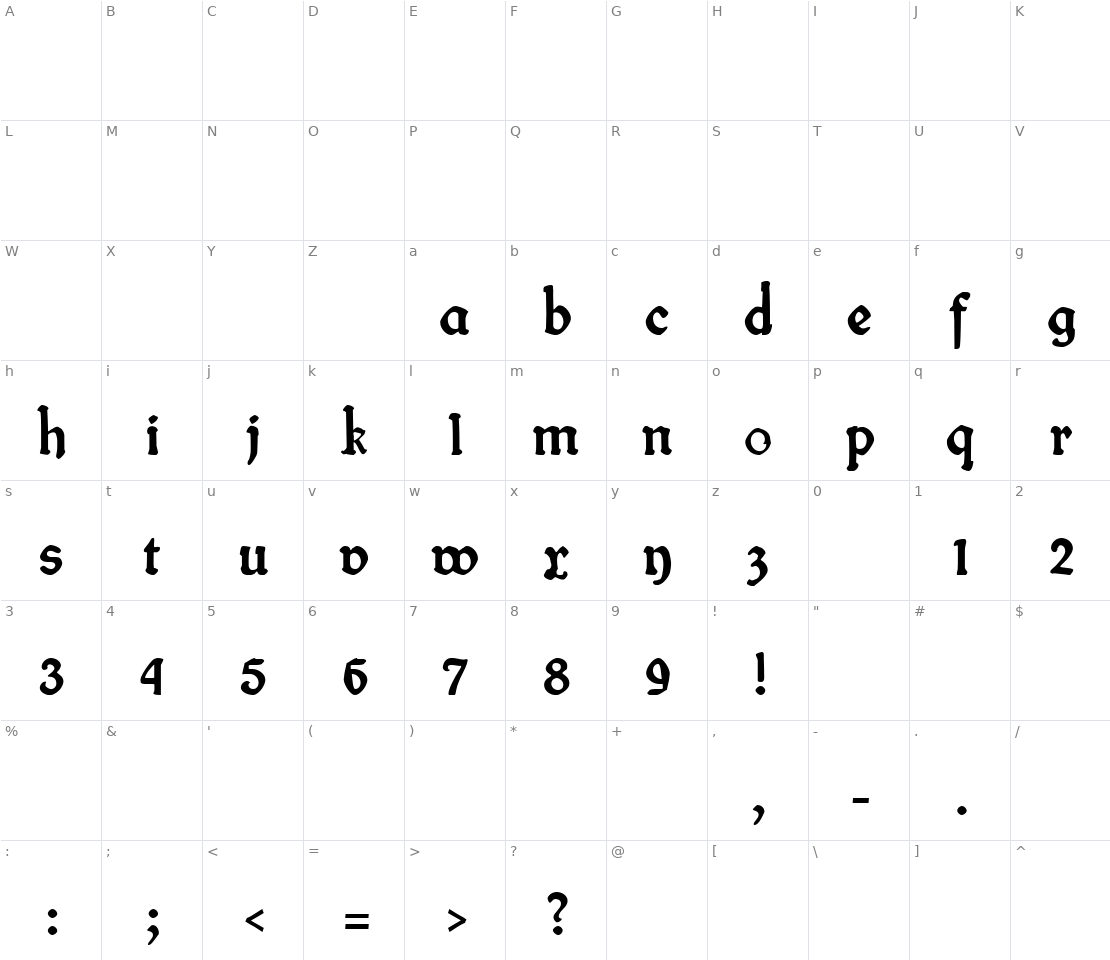
Fin Fraktur
Fin Fraktur is a bold blackletter face from Intellecta Design rooted in the German Fraktur tradition, with dense, angular strokes and the ornate broken curves that define the style. The letterforms carry serious visual weight and historical gravity, making them a strong choice for headlines, certificates, beer labels, and anything that needs to evoke medieval or old-world Germanic character. Legibility drops fast at small sizes, so it works best when given room to breathe.